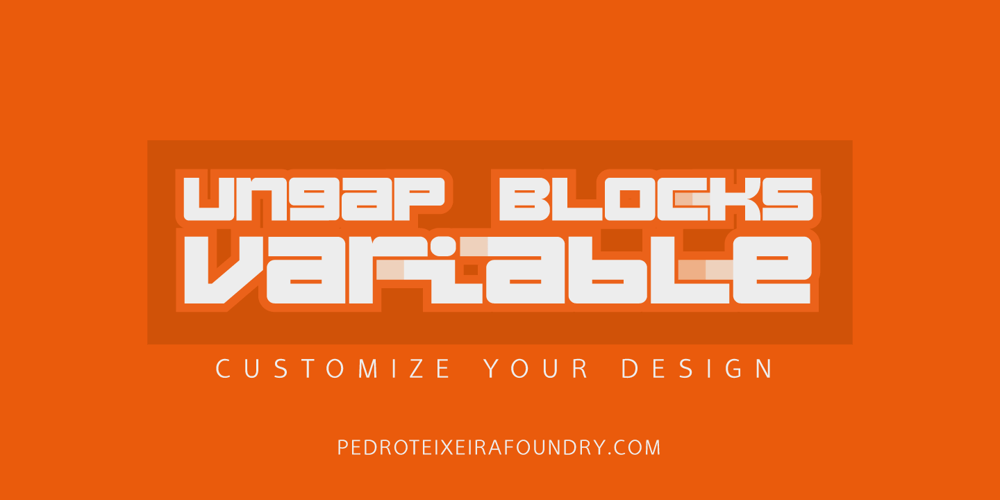
Ungap Blocks Variable
Ungap Blocks Variable font
Ungap Blocks Variable Font Family was designed by Pedro Teixeira and published by Pedro Teixeira. Ungap Blocks Variable contains 1 styles and family package options. This font was designed by blocks, square glyphs. Terminals/crossbars of some glyphs can be extended in a way that you can customize the text of your design by using the selection bars in “variable font” button. That button will appear in the text editor of your program, if such option is available, like in recente illustrator and photoshop.